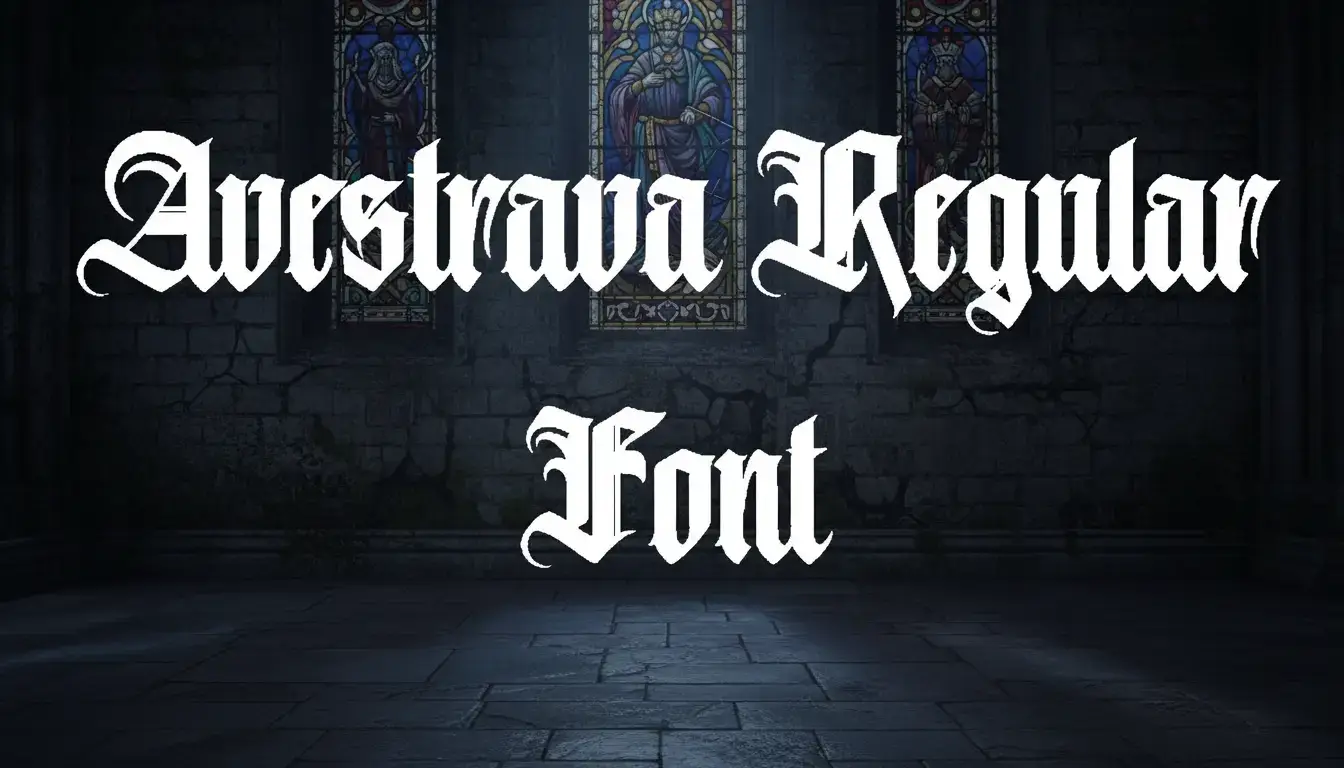
Avestrava Regular Font
Avestrava Regular
Avestrava Regular is a gothic font created by Ilham Wahyu and released through @ilhamtaro. Its pointed, heavy strokes give it a dark, dramatic blackletter look. You can download it for free and test it with your own words in the preview above.
What You Can Type With Avestrava Regular
Avestrava Regular covers the full alphabet in upper and lowercase, plus all ten numbers, so you can set names, dates and prices without switching fonts. Everyday marks like &, !, ? and @ are there too. There are no accented letters like é or ñ, so it's best kept to English text.
Where Avestrava Regular Works Best
Avestrava Regular is a natural fit for tattoos, metal band logos and dark fantasy titles. Blackletter is very hard to read in all caps, so type in normal upper and lowercase.
Does Avestrava Regular support accented letters?
No. Avestrava Regular has no accented letters such as é, ñ or ü, so it's best for English text.